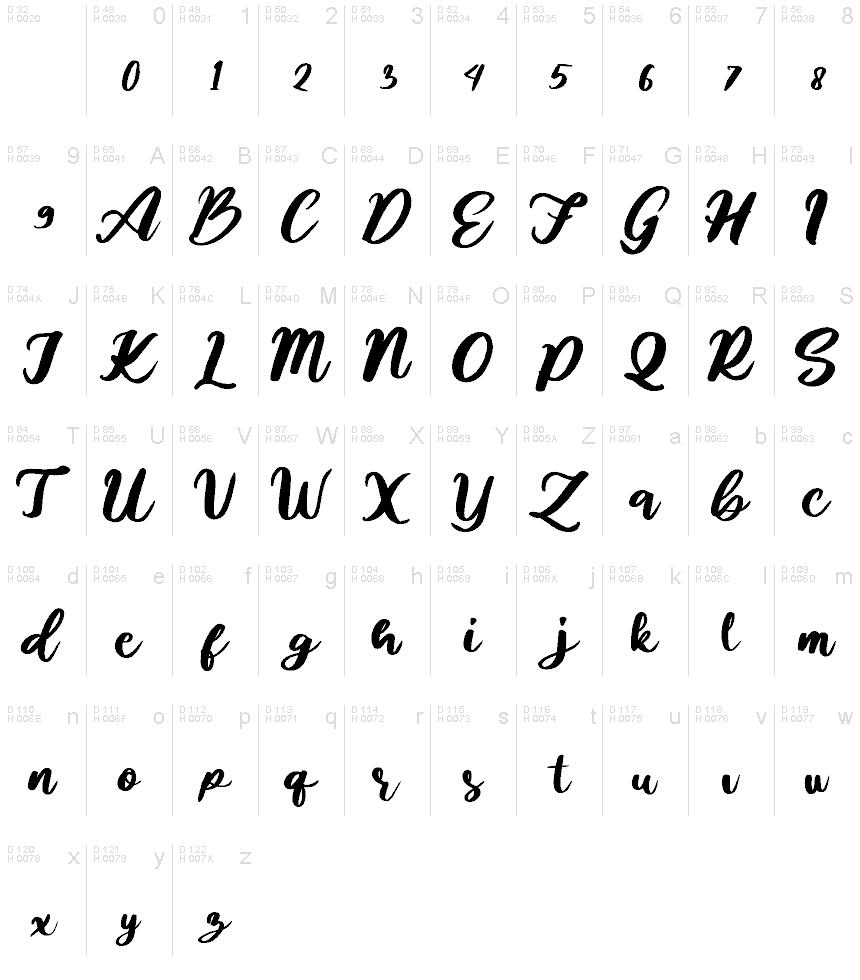
Kalimby Regular
Kalimby font by Craft Supply Co. is a free brush script font, an expressive and flowing typeface that blends modern script style with casual elegance. It presents a lively and artistic flair, perfect for designs that aim to captivate attention through subtle charm and sophistication.
Suitable for greeting cards, invitations, posters, social media graphics, logo designs, book covers, website headers, product packaging, magazines advertisements; or even branding elements of fashion and lifestyle brands.